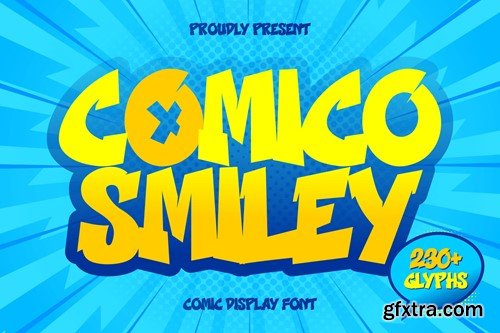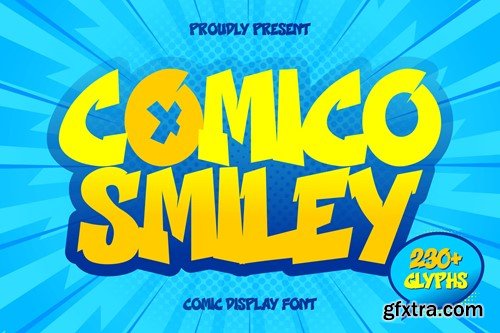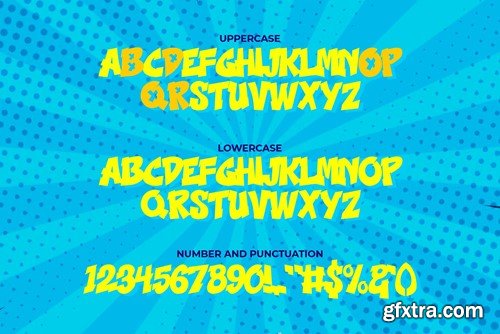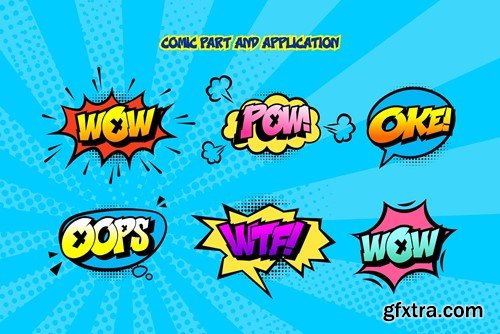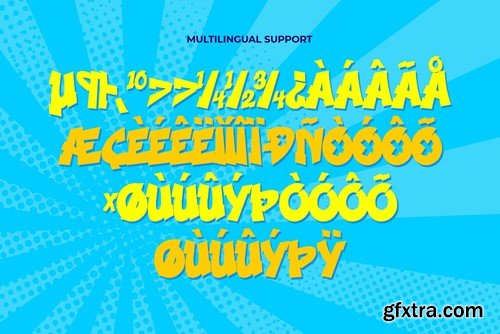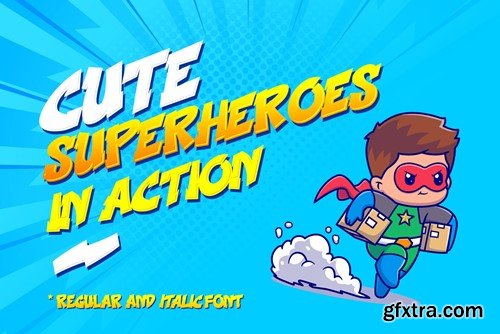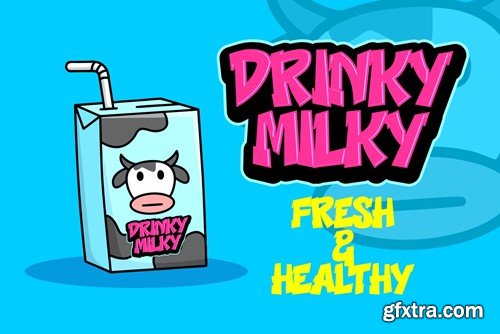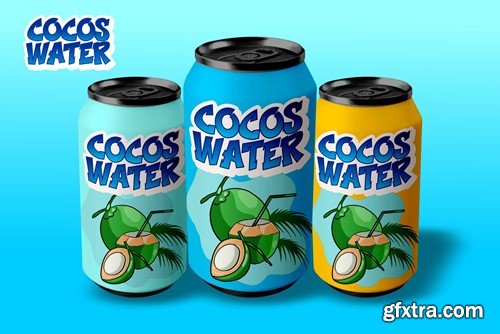
Comico Smiley - Comic Display Font RGXLRUH
Comico Smiley - Comic Display Font
Comico Smiley is a playful and vibrant comic display font that brings out the cheerful and energetic spirit of comic books. With its whimsical, eye-catching lettering, it's the perfect choice for comic strips, graphic novels, or any project that needs to infuse a sense of fun and dynamism. Comico Smiley adds a delightful and charismatic touch to your text, ensuring your designs are as engaging and captivating as the most beloved comic characters.